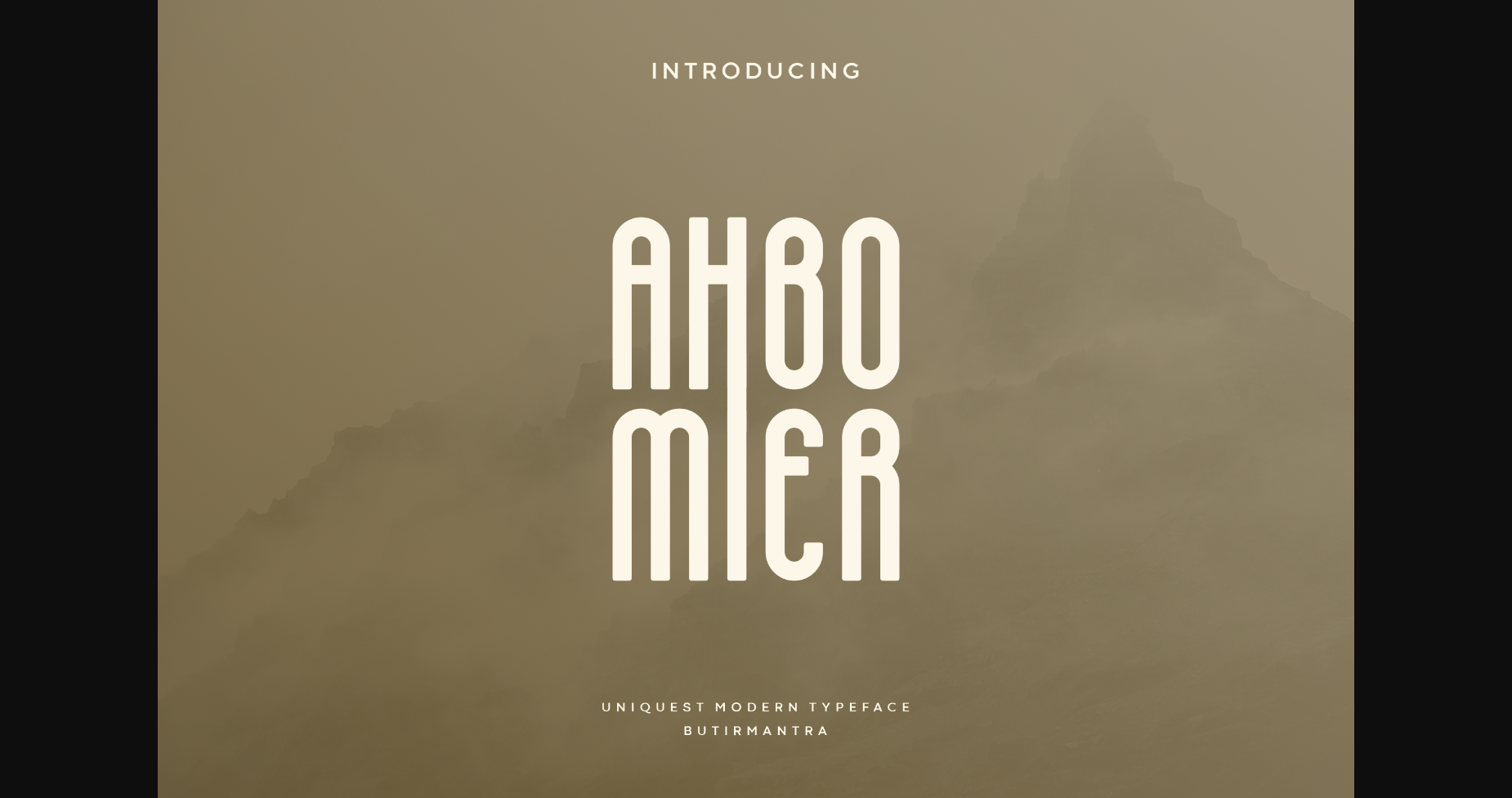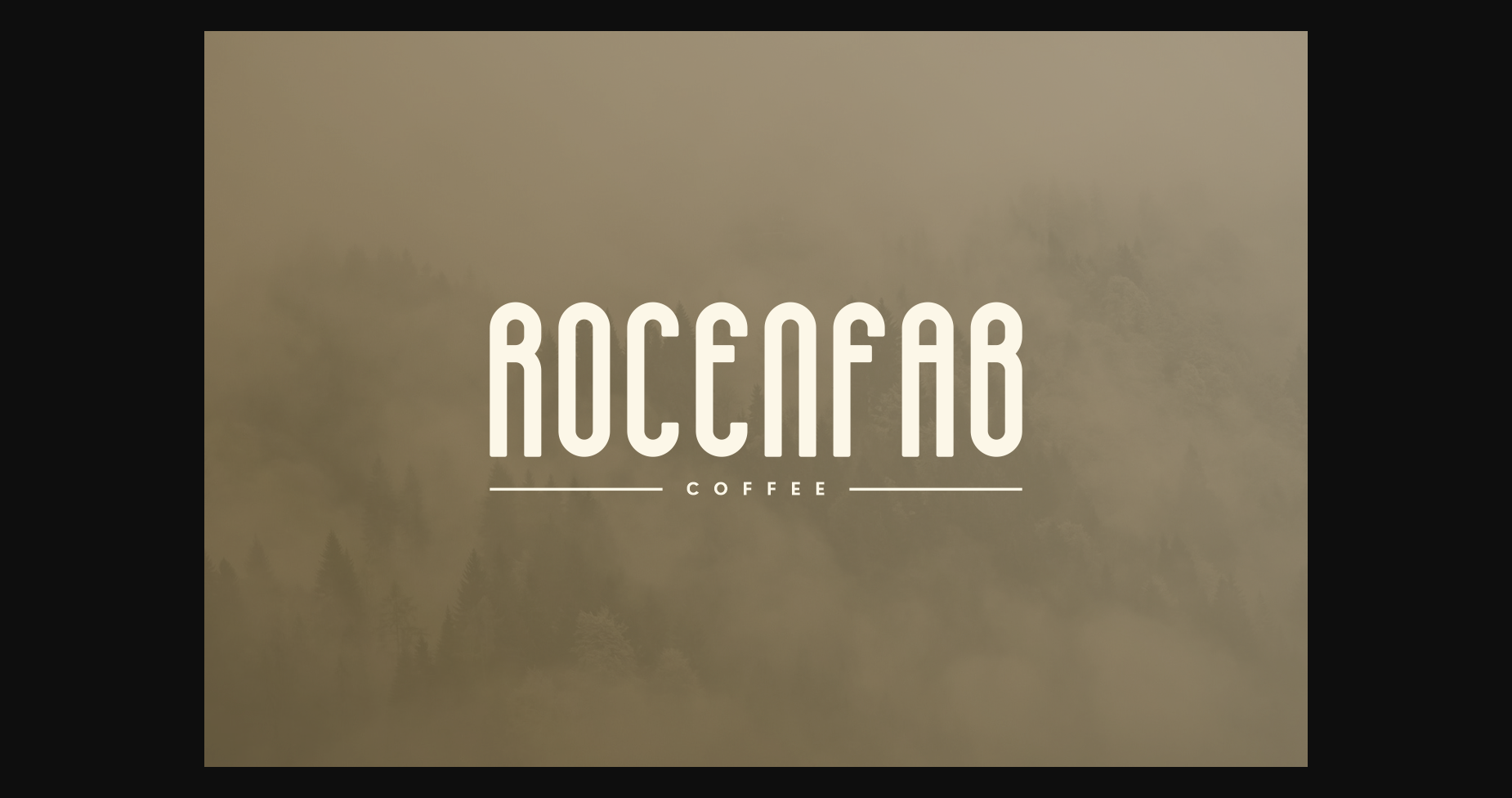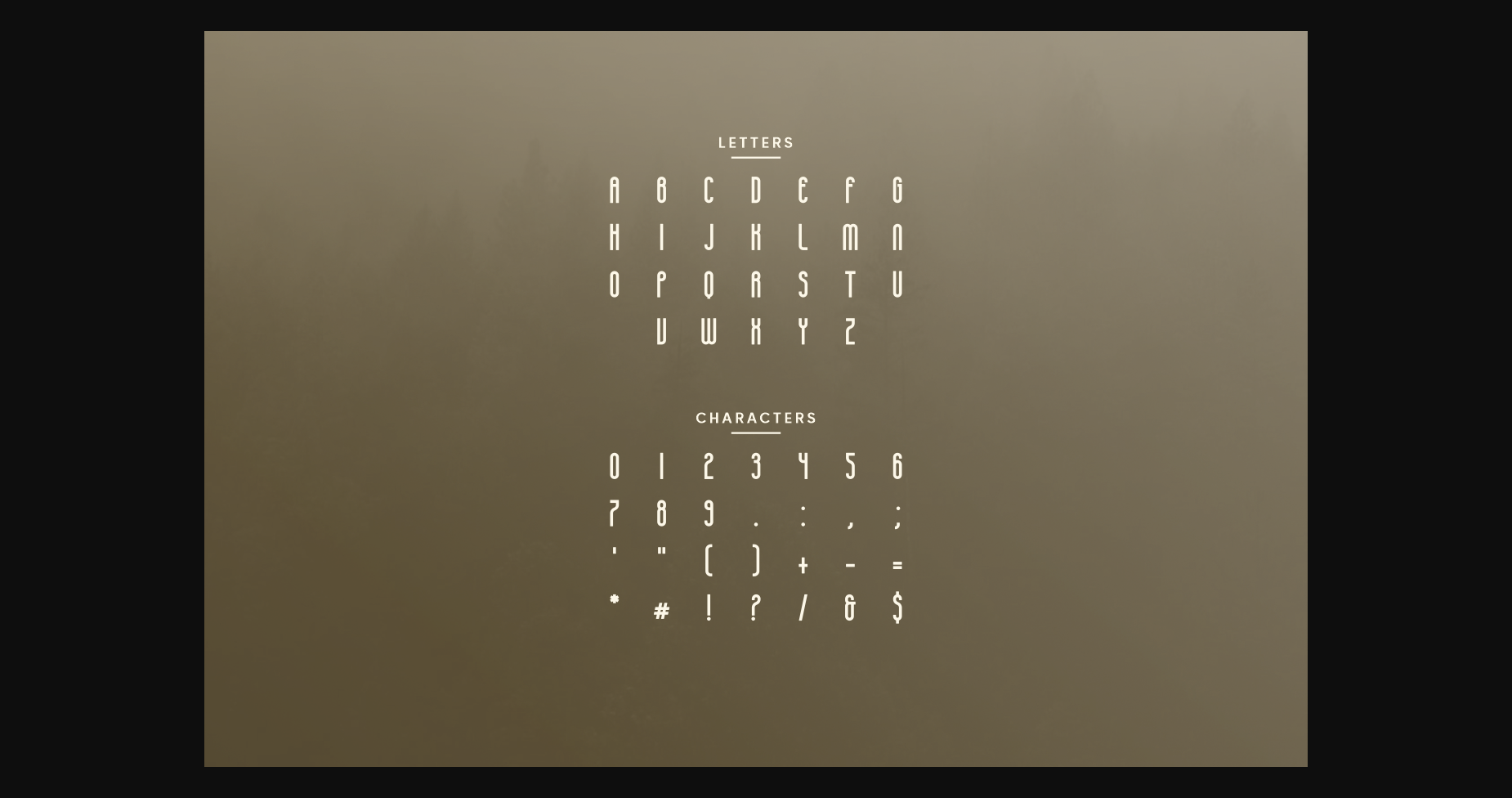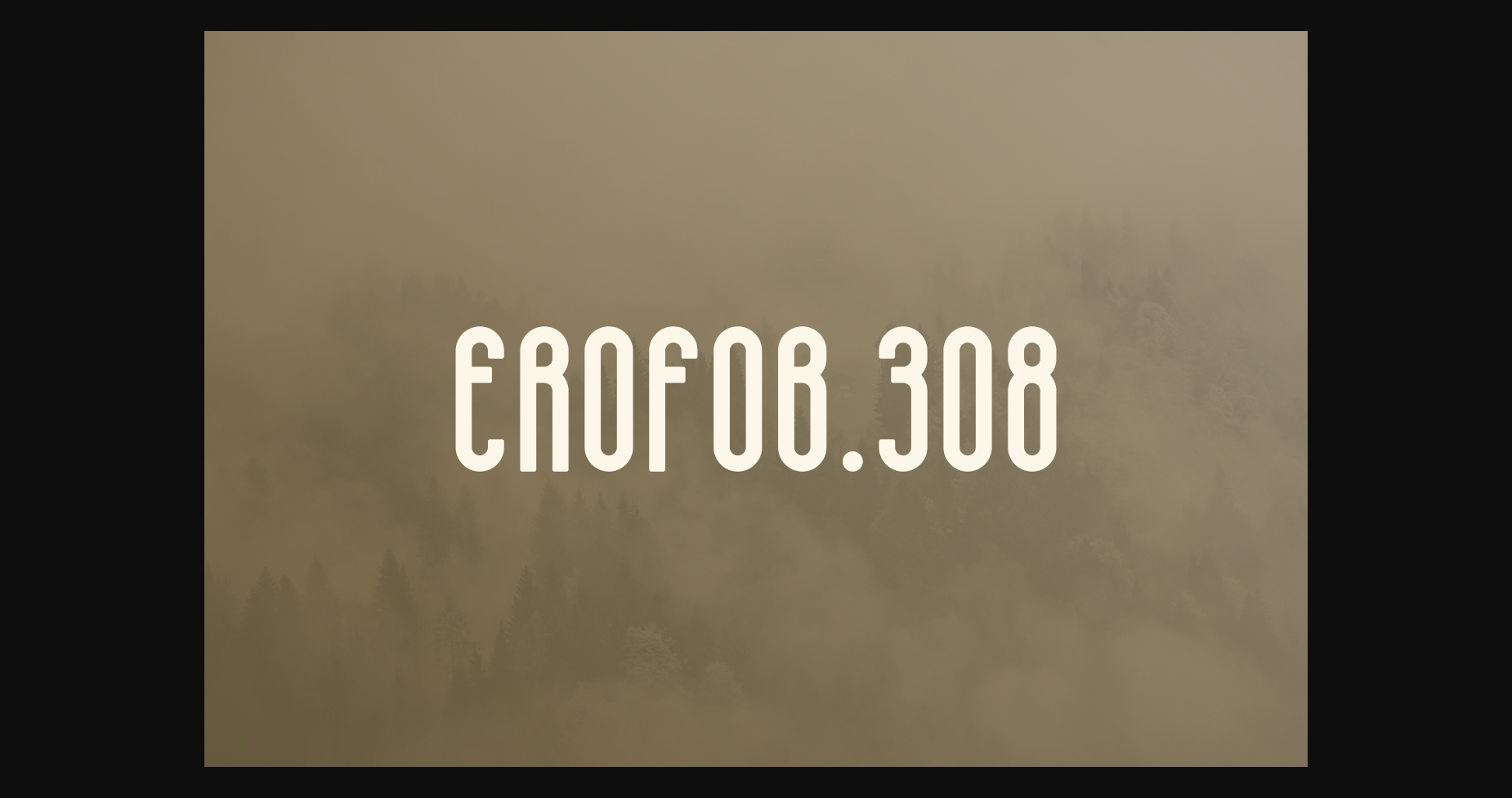
Ahbomier Font
About Ahbomier Font
Ahbomier is an elegant font that blends modern elegance with vintage charm, comes with all-caps. Its clean, simple lines give it a timeless look that will never go out of style. Its graceful curves provide a unique visual aesthetic that adds a touch of luxury to any design. This font is perfect for any project that requires a modern yet timeless aesthetic and can be used to create a variety of designs, from logos, branding, headline, poster, magazine, and other creative projects. With its modern, beautiful, and clean look, this font is sure to add a touch of elegance and sophistication to any project.